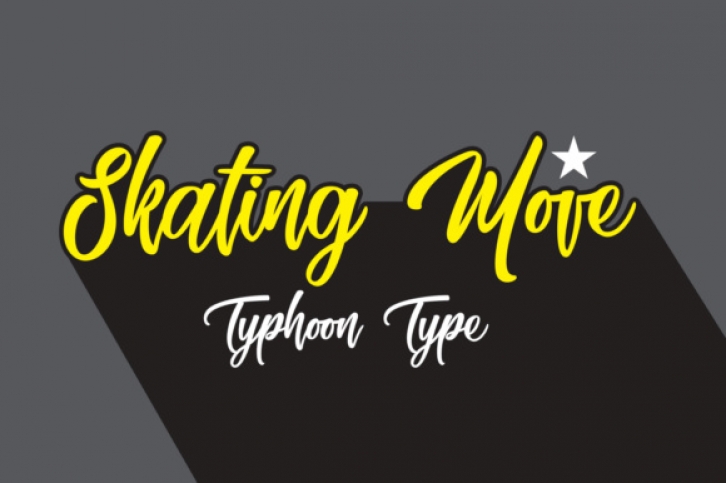
Skating Move is a skater type of font that has a fun edgy street look and feel.
Works great as a graffiti font and can be used for a large number of different types of designs.